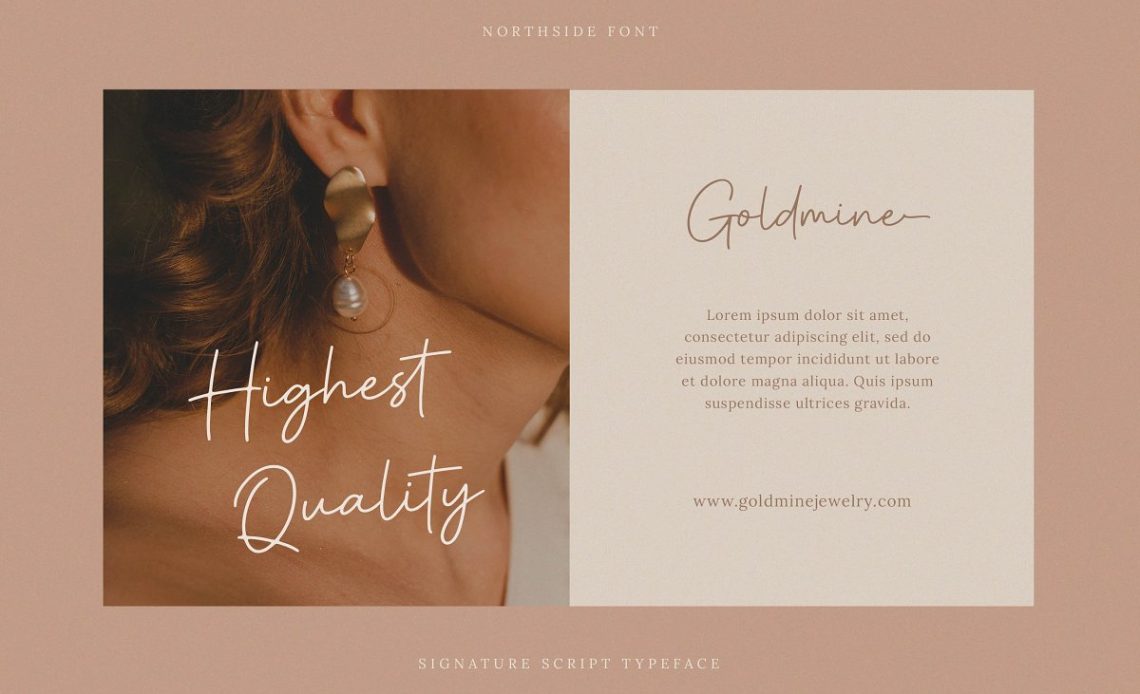
Hello everyone, I would like to introduce Northside a handwritten font with a casual and elegant style.
Northside can also be used for a variety of projects such as branding, labels, photography, invitations, stationery, wedding designs, social media posts, advertising, product packaging, product design and other awesome projects.